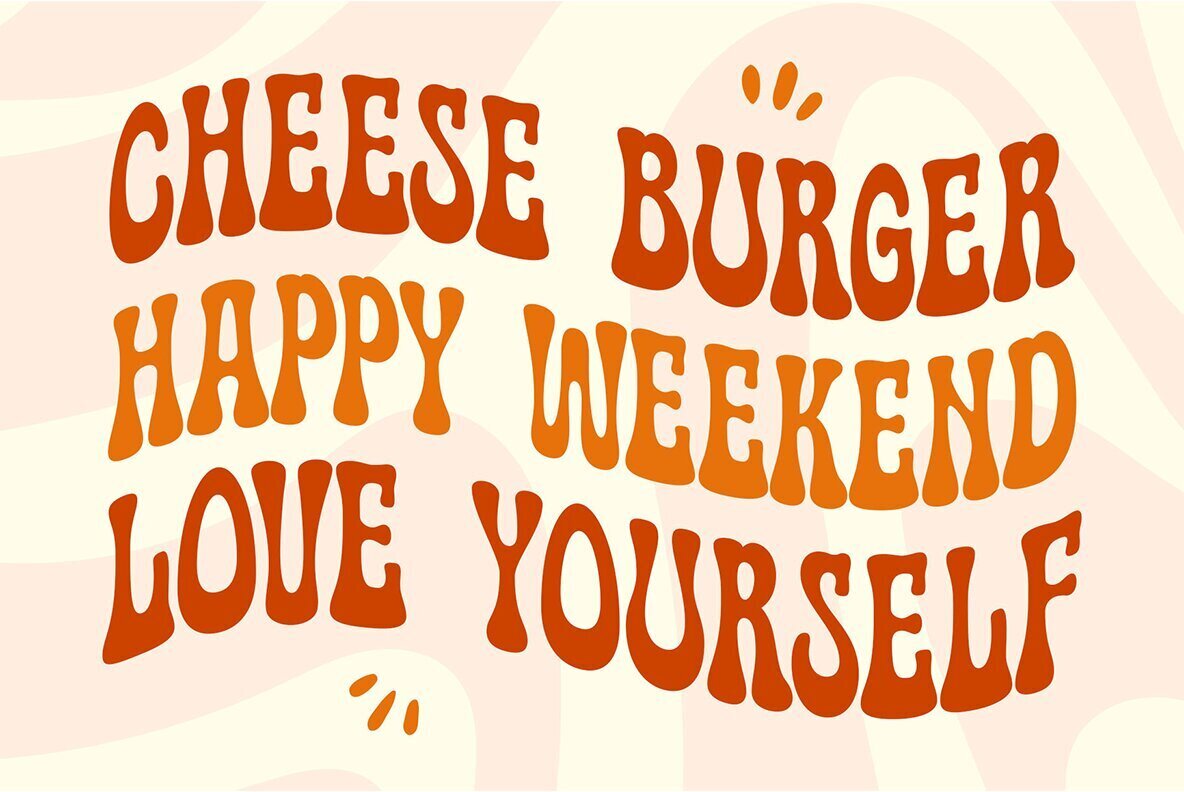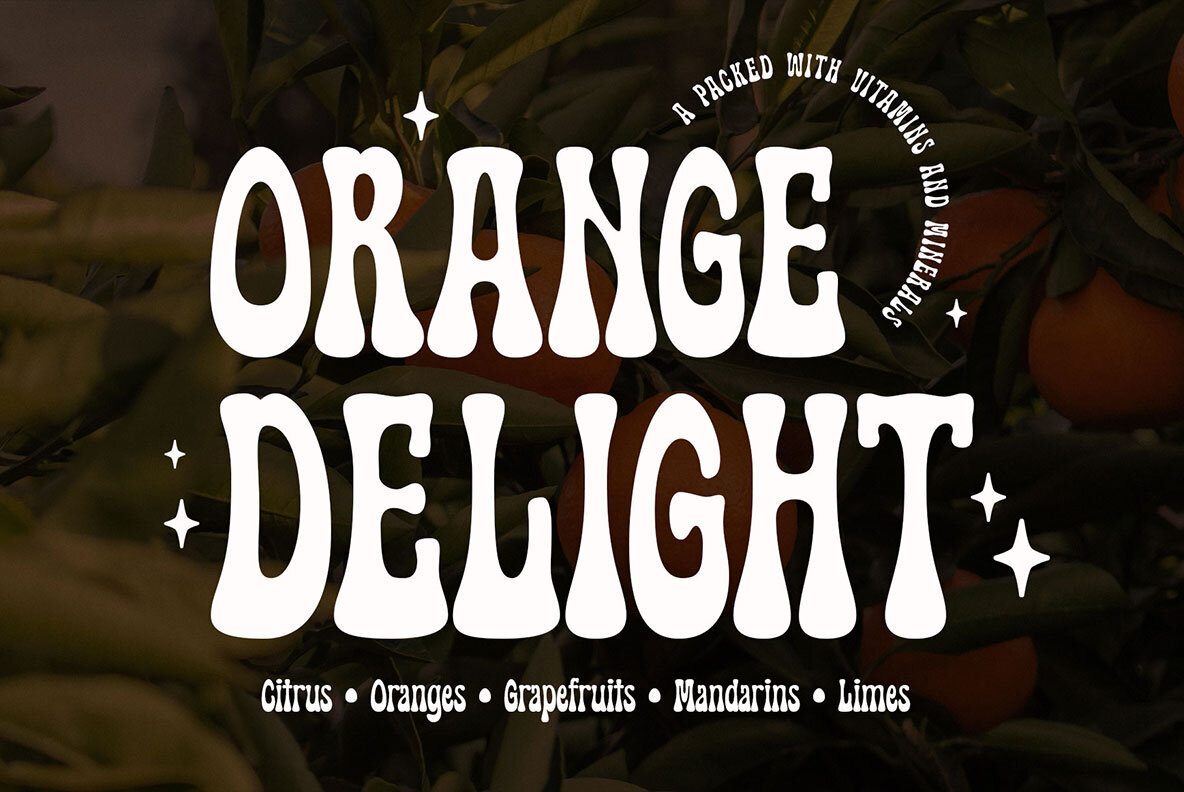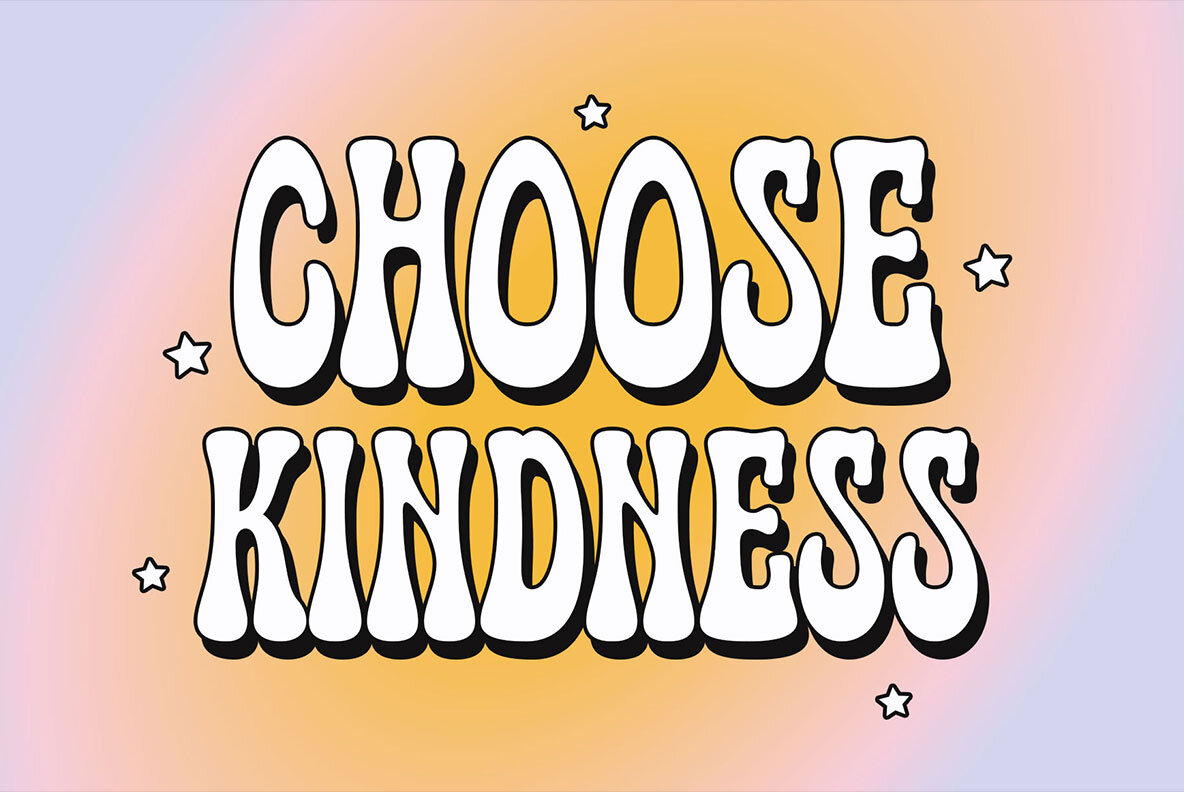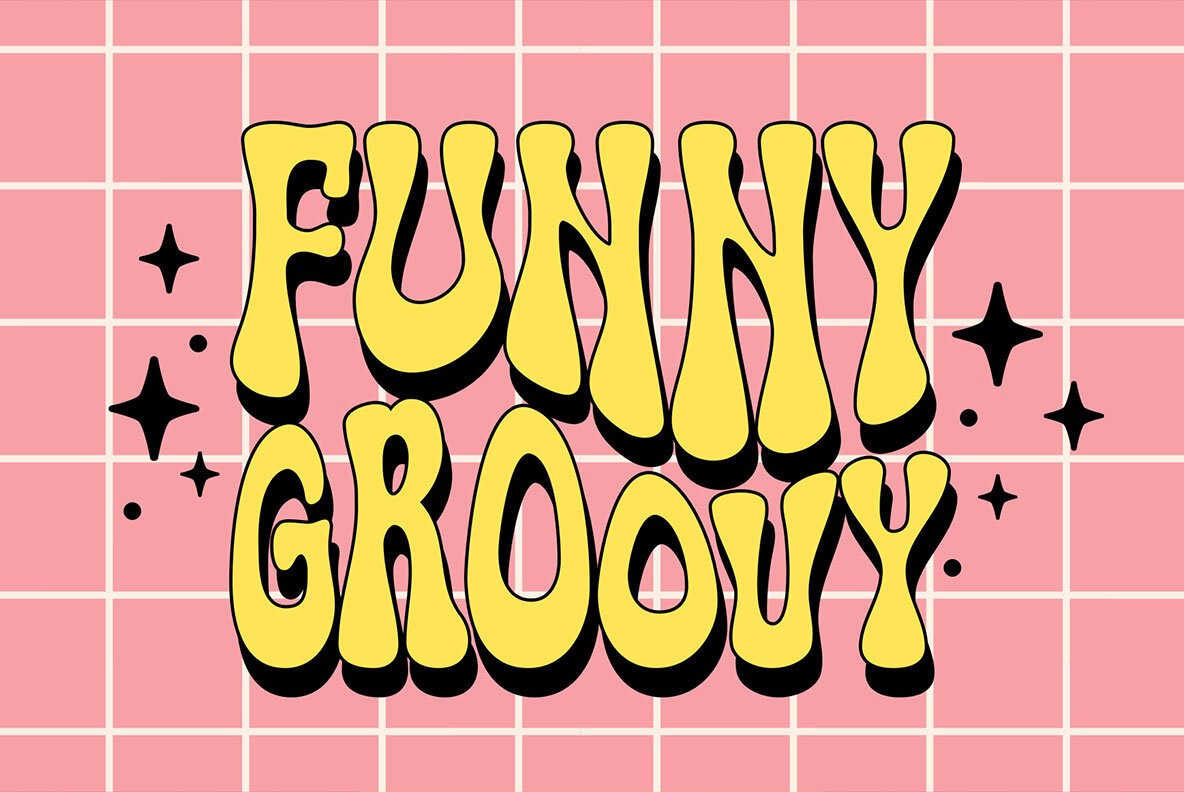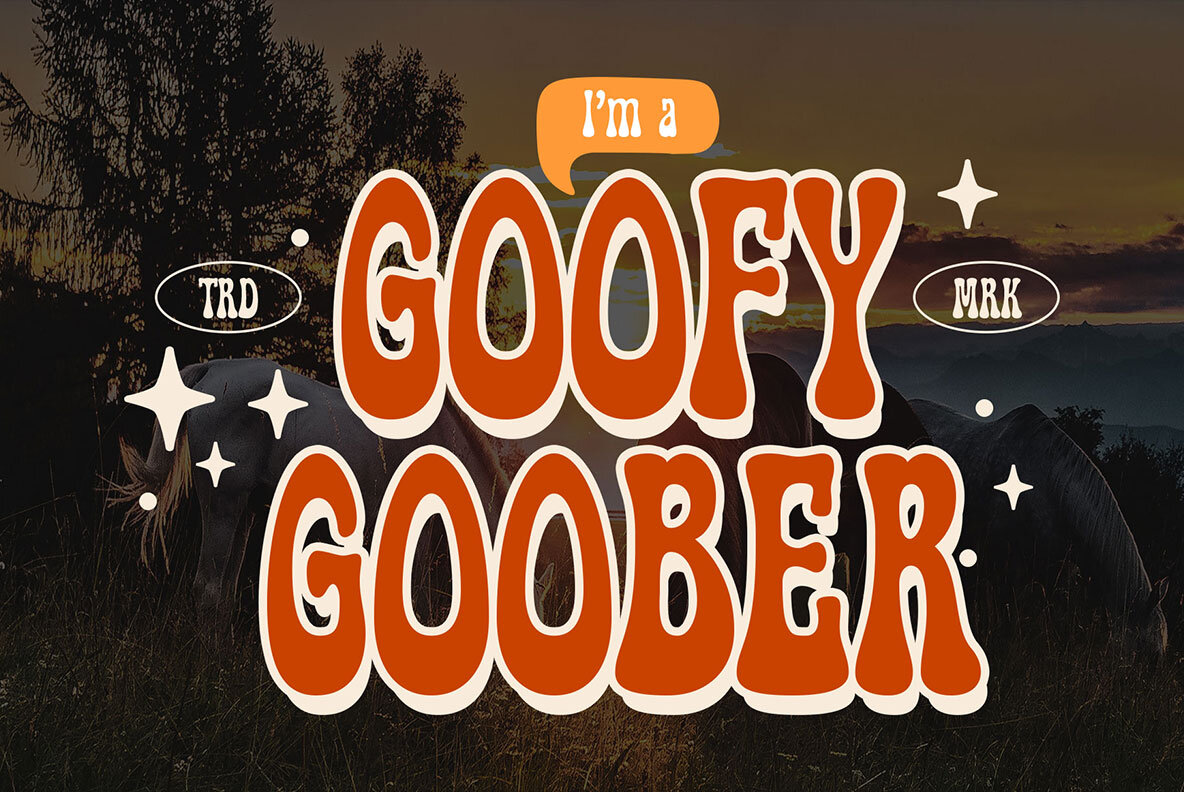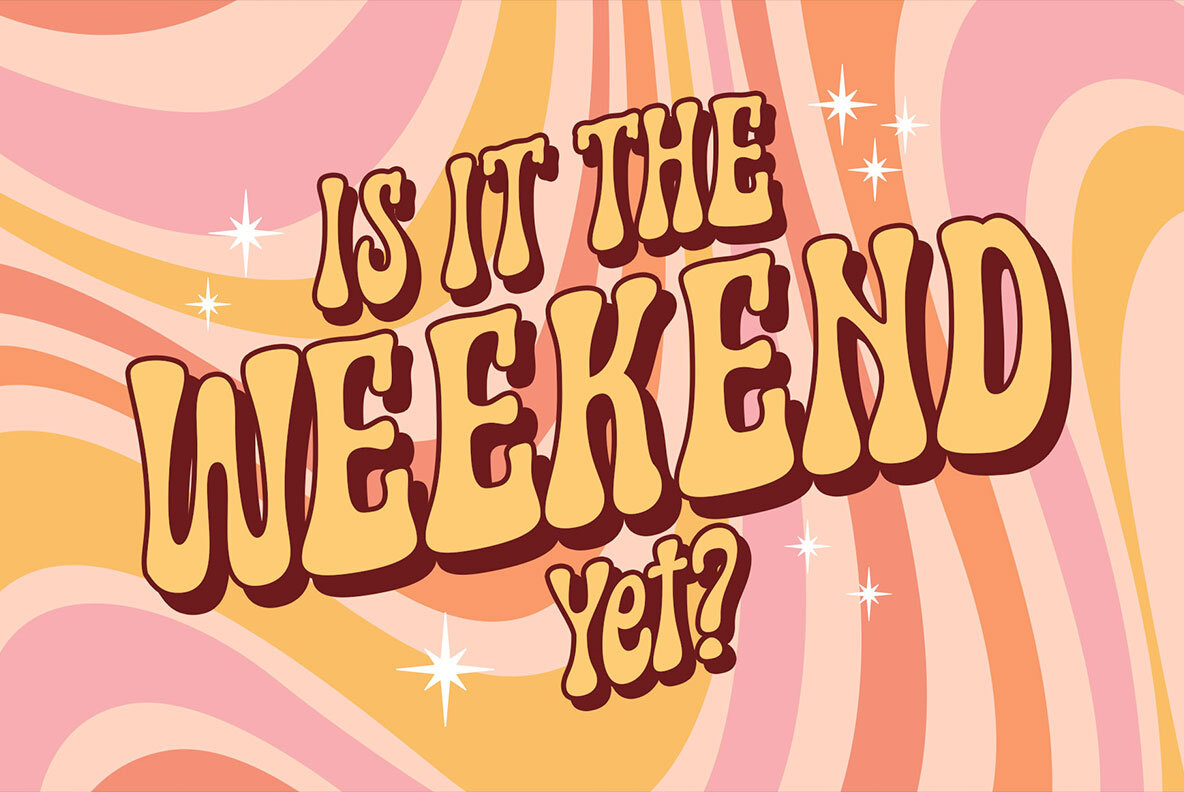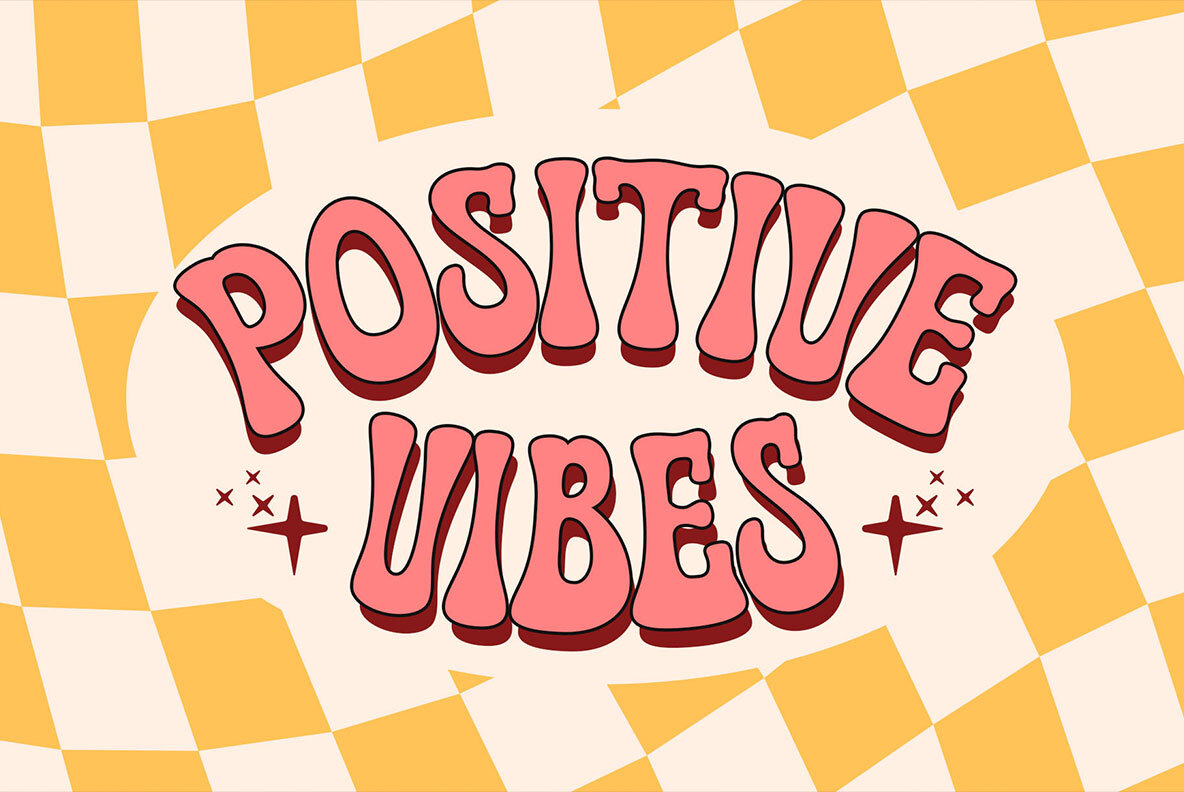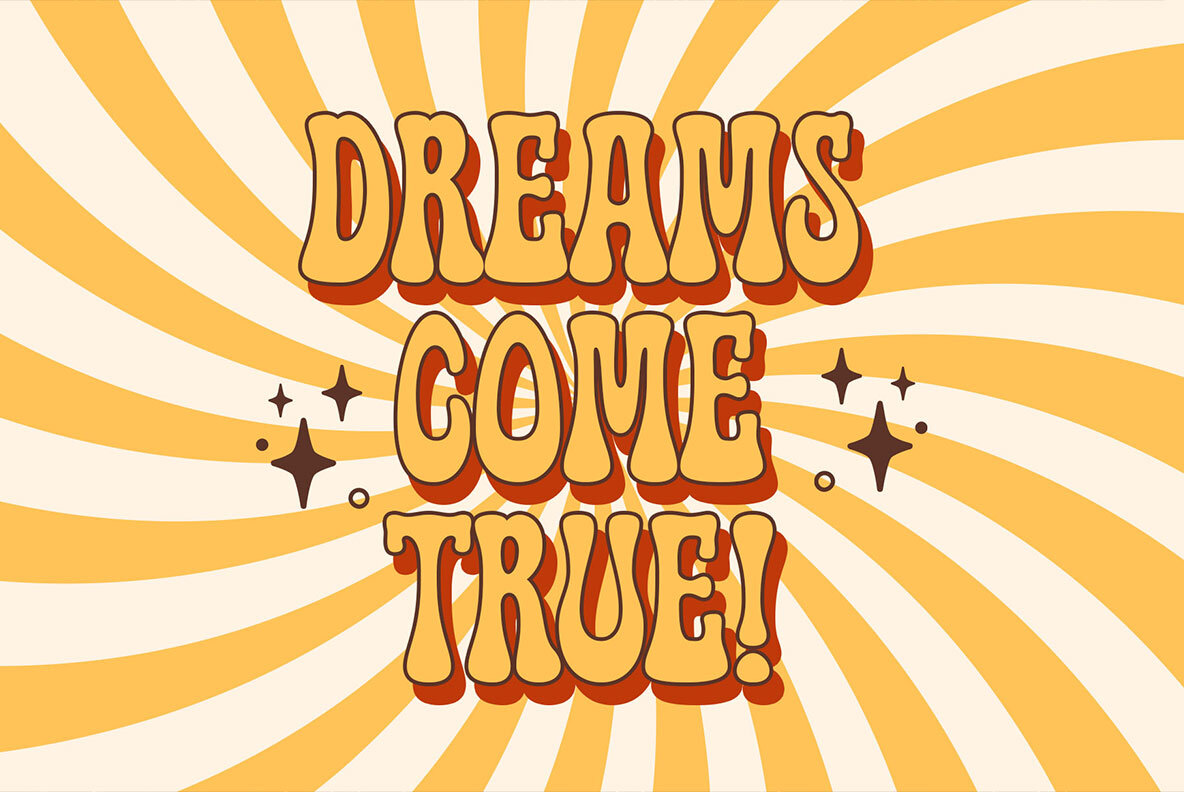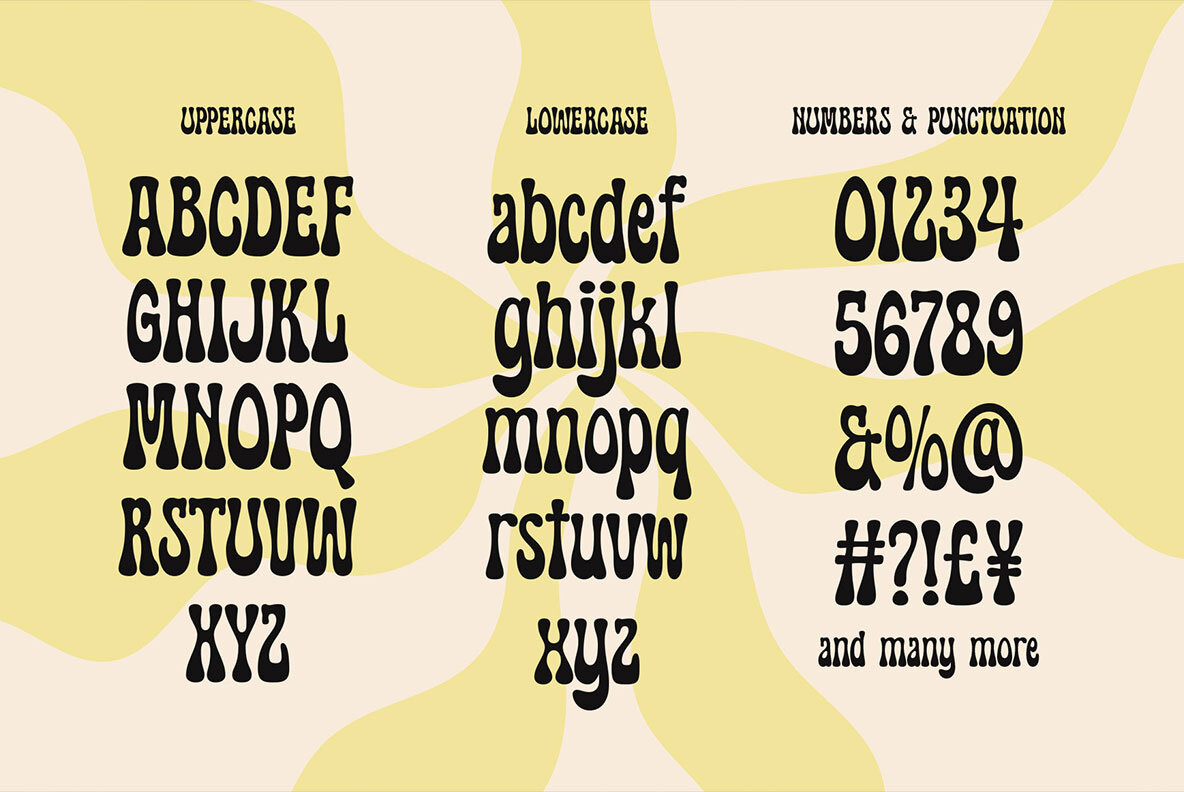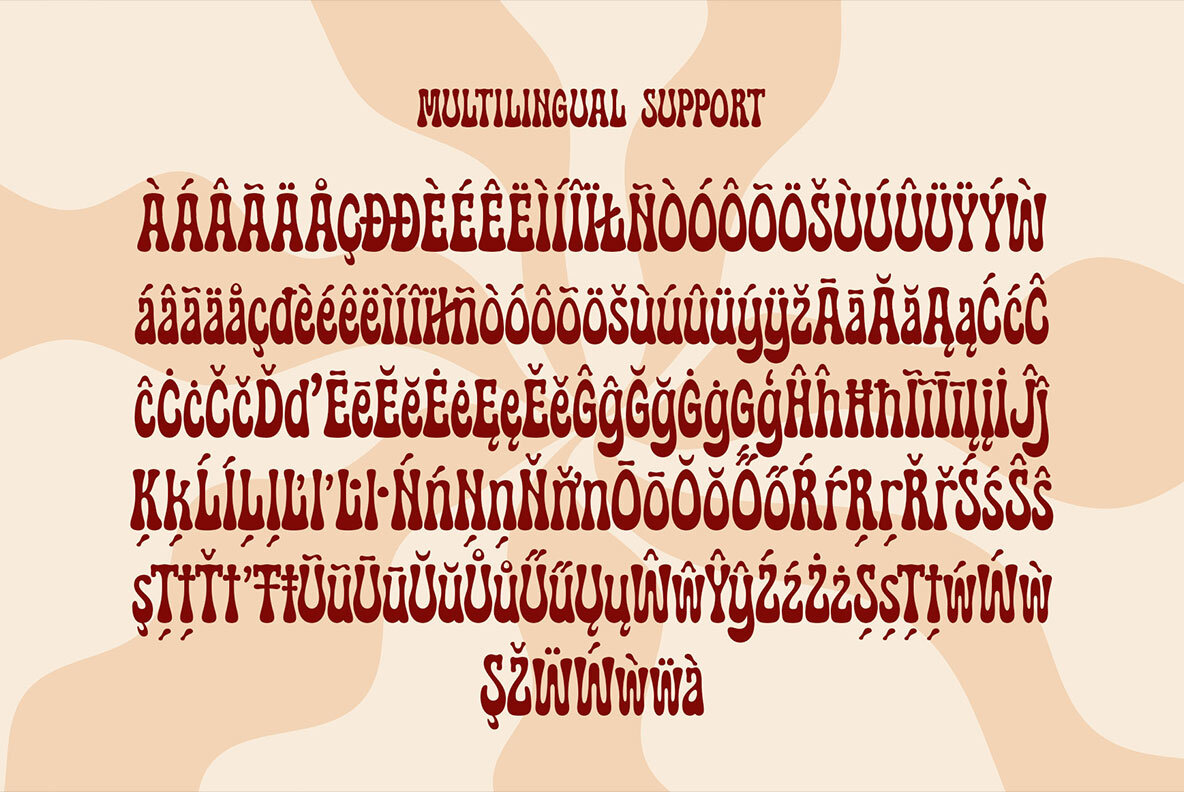
Monoway Groovey Font
Monoway Groovey Regular
Introducing our latest exploration, the "Monoway Groovey" font!
Inspired by the iconic pop art and design trends of the 70s, this font boasts a stunning shape based on curves, giving your designs a dynamic and lovely impression that is sure to catch the eye.
Perfectly suited for themes ranging from retro to modern-vintage, Monoway Groovey is a versatile typeface that will elevate any design. Whether you're creating a t-shirt, poster, flyer, label, branding, logo, emblem, or quote, this font is the ideal choice.
Supported by multilingual characters, add a touch of playfulness and nostalgia to your work with Monoway Groovey.